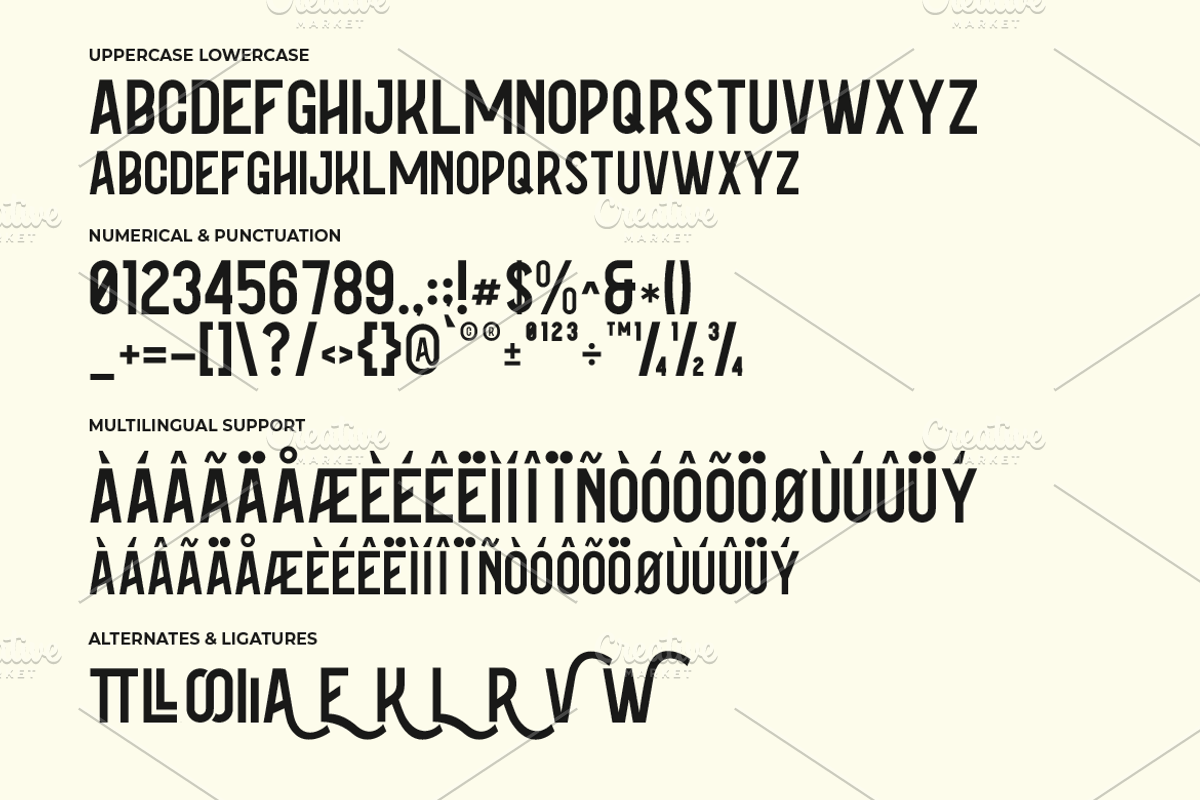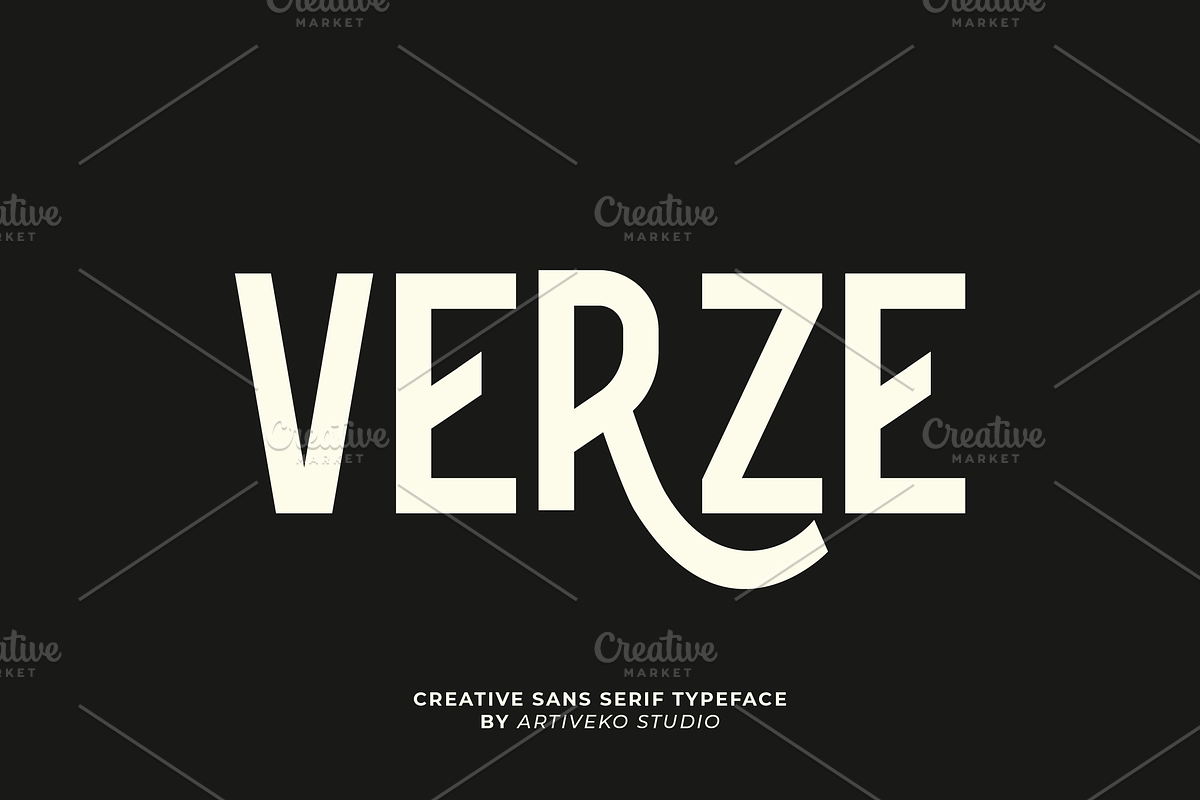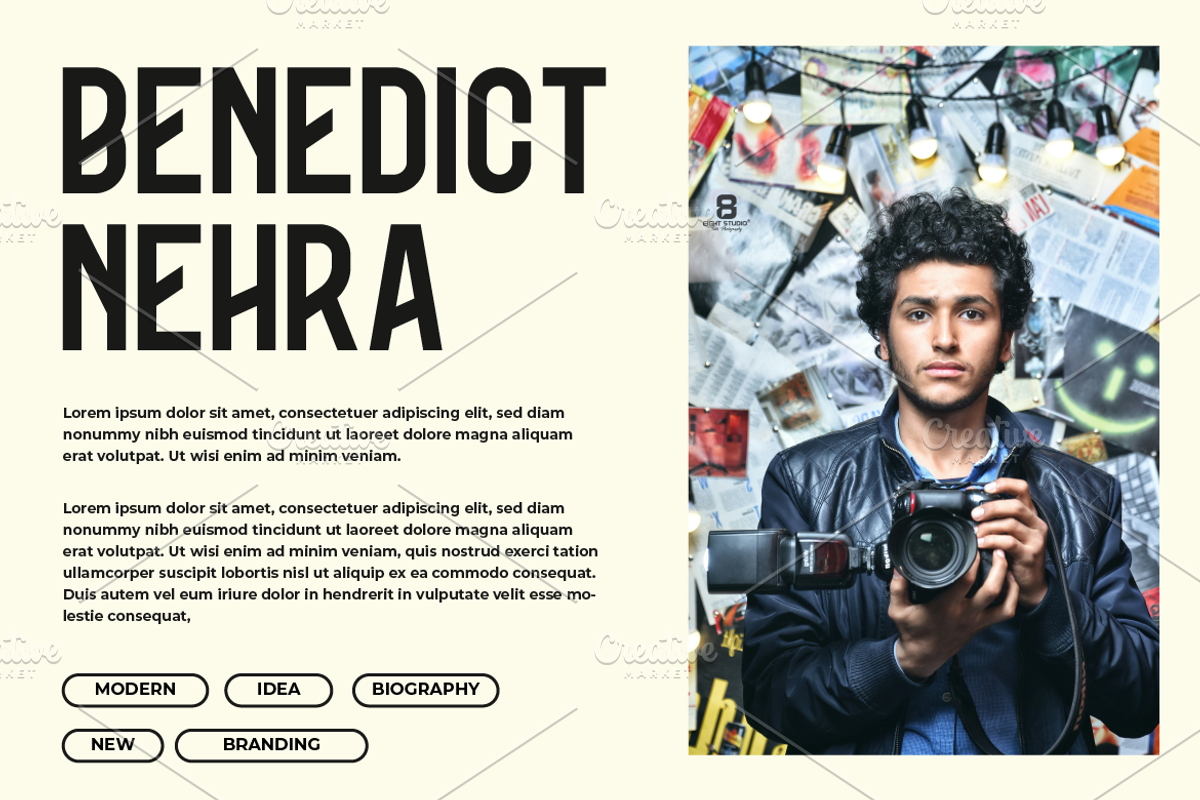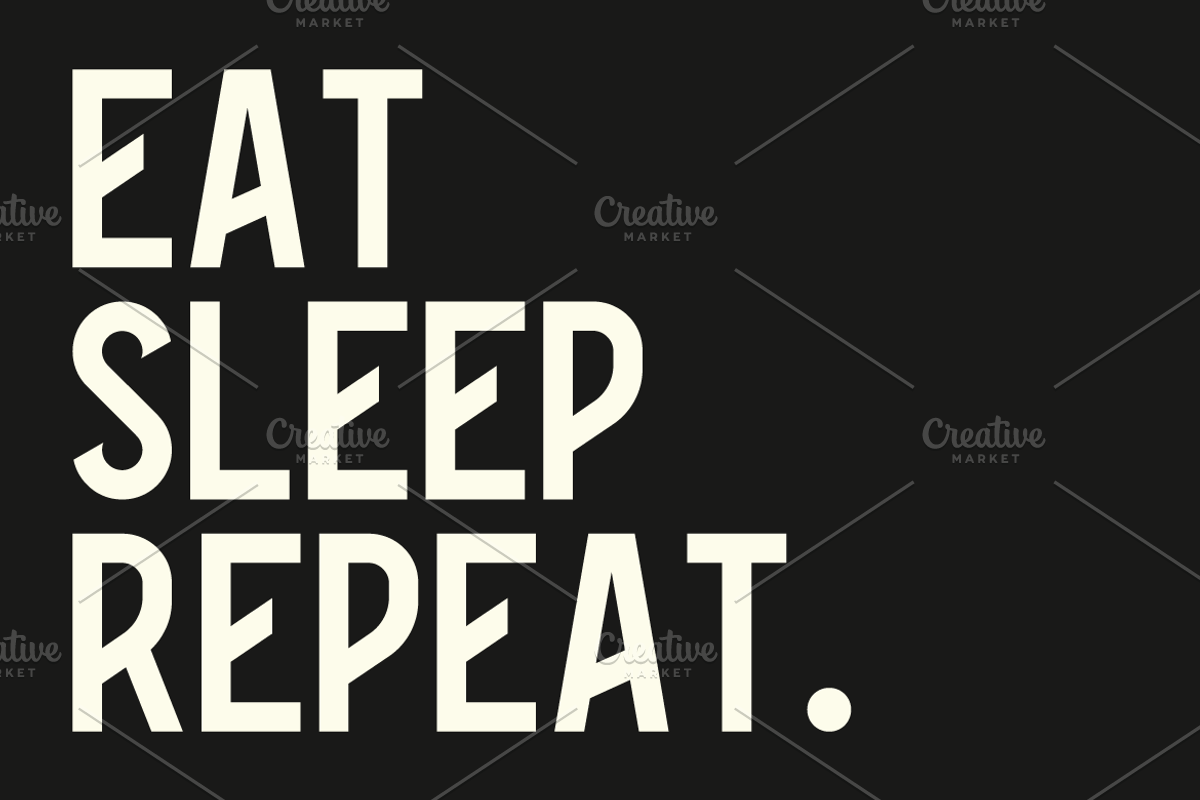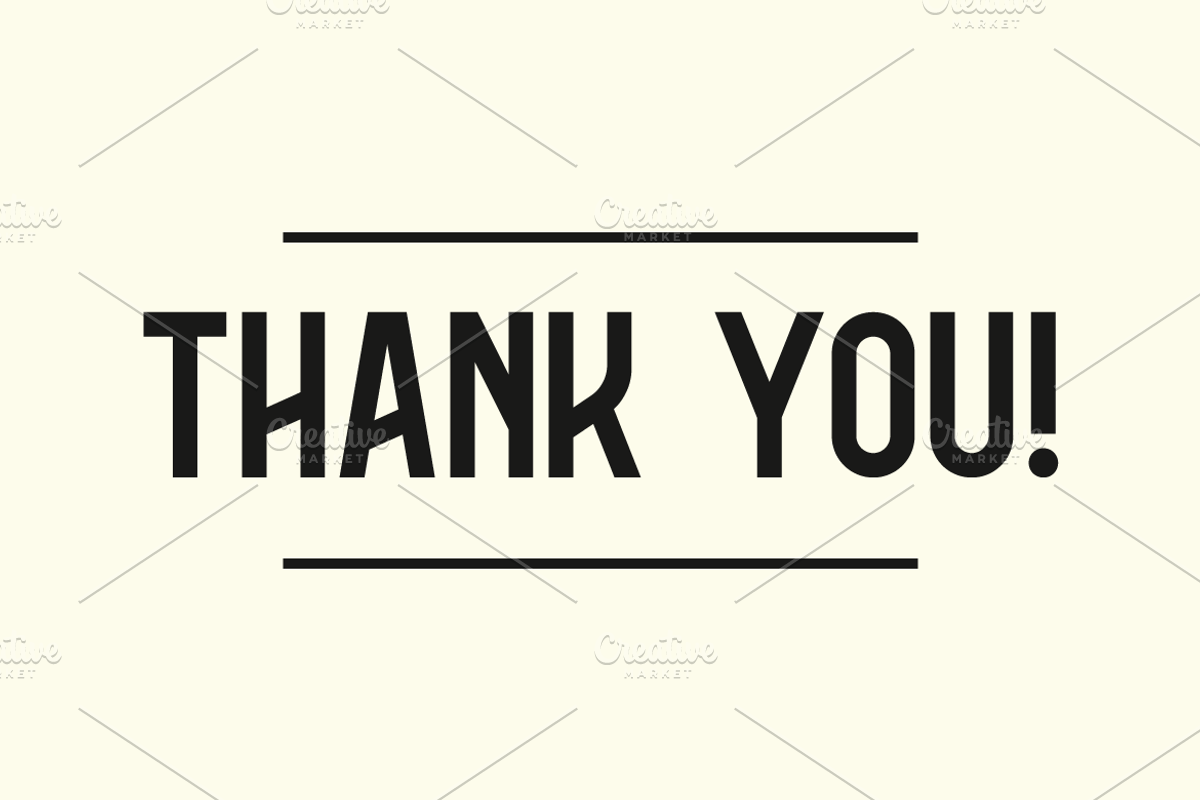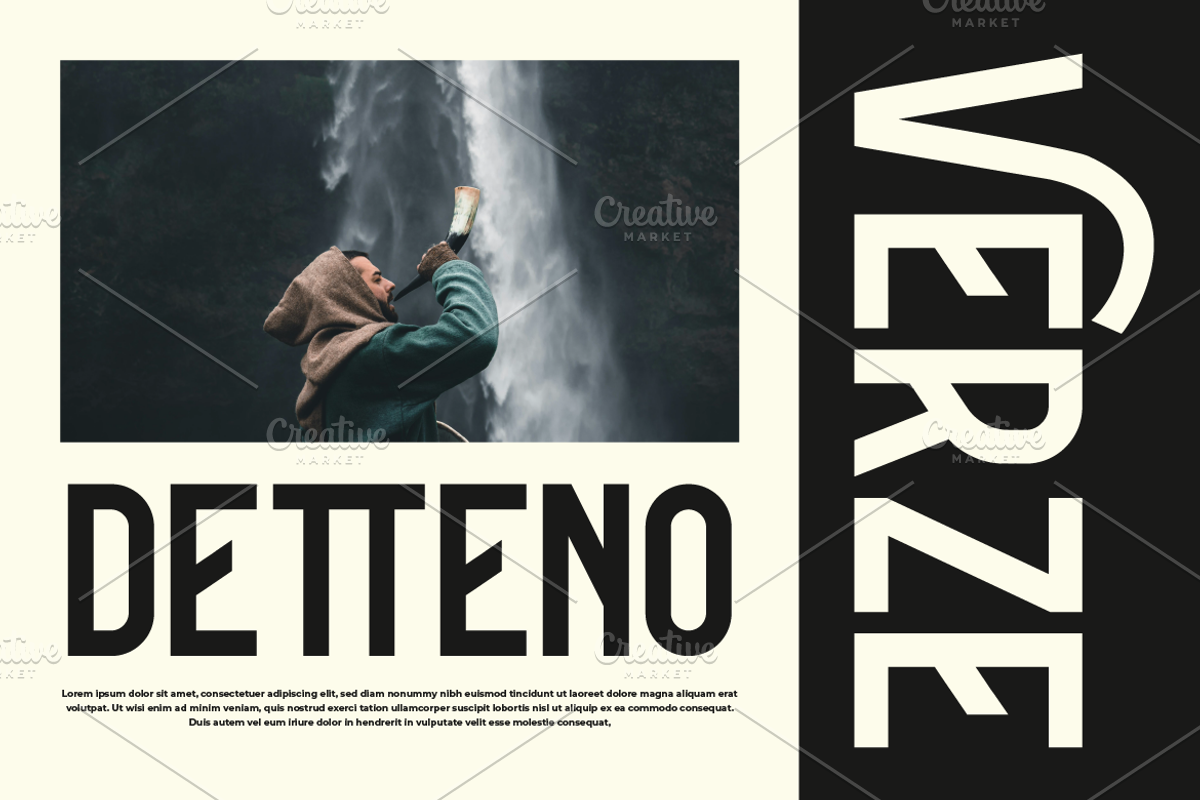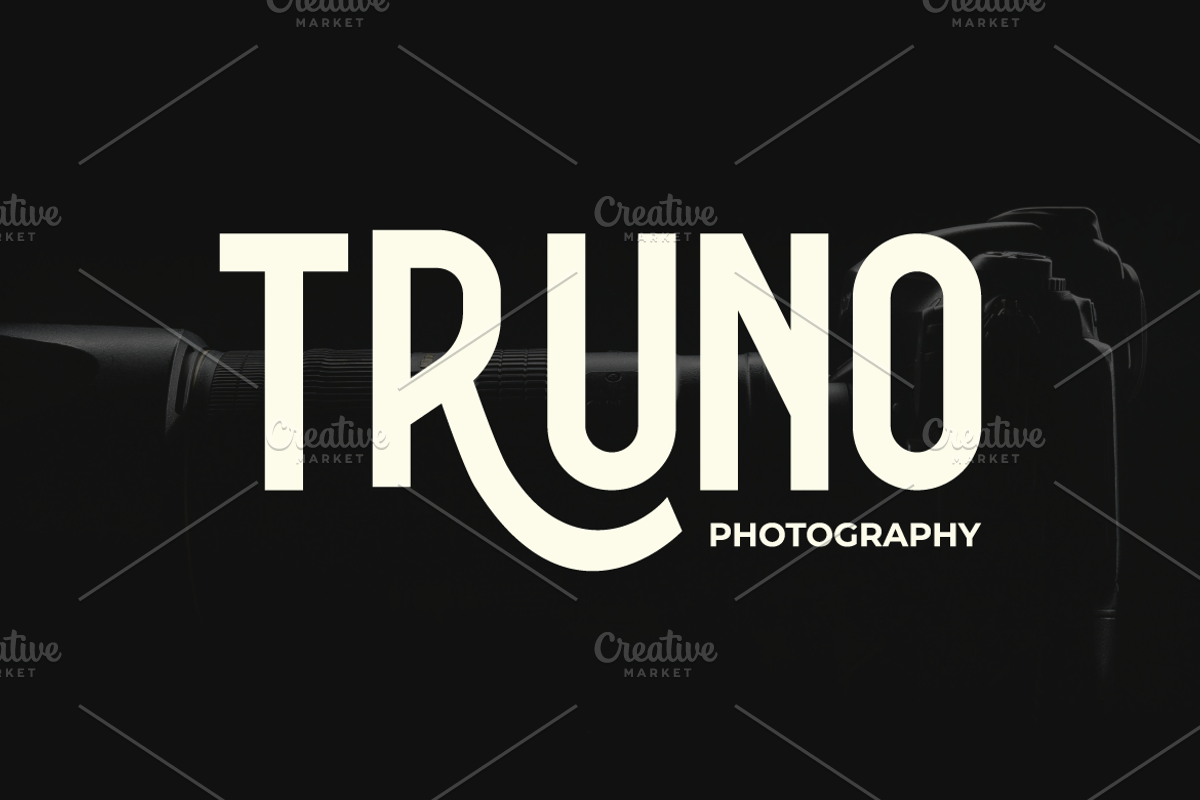
Verze Condensed Strong Font
Verze is a condensed strong sans serif font designed by Iwan Alwan, featuring bold and narrow letterforms that maximize impact while saving space. Perfect for powerful headlines, branding, and posters, Verze exudes strength and modernity in a compact design. With multilingual support, ligatures, and alternates, Verze offers both versatility and a commanding presence, making it ideal for projects that need a bold and space-efficient aesthetic.